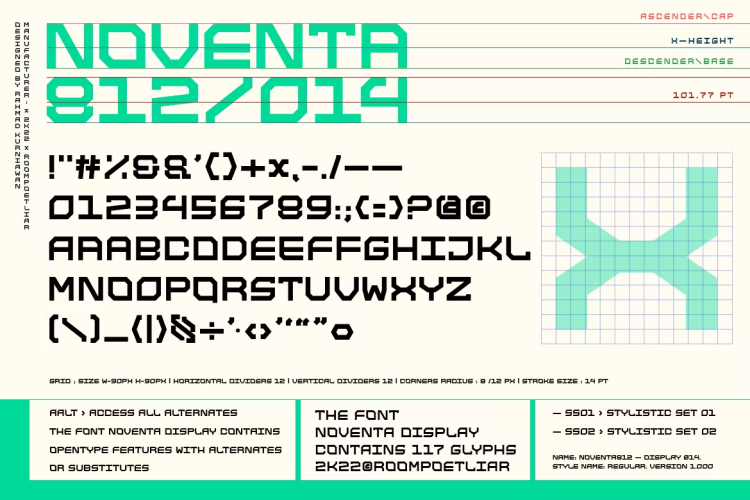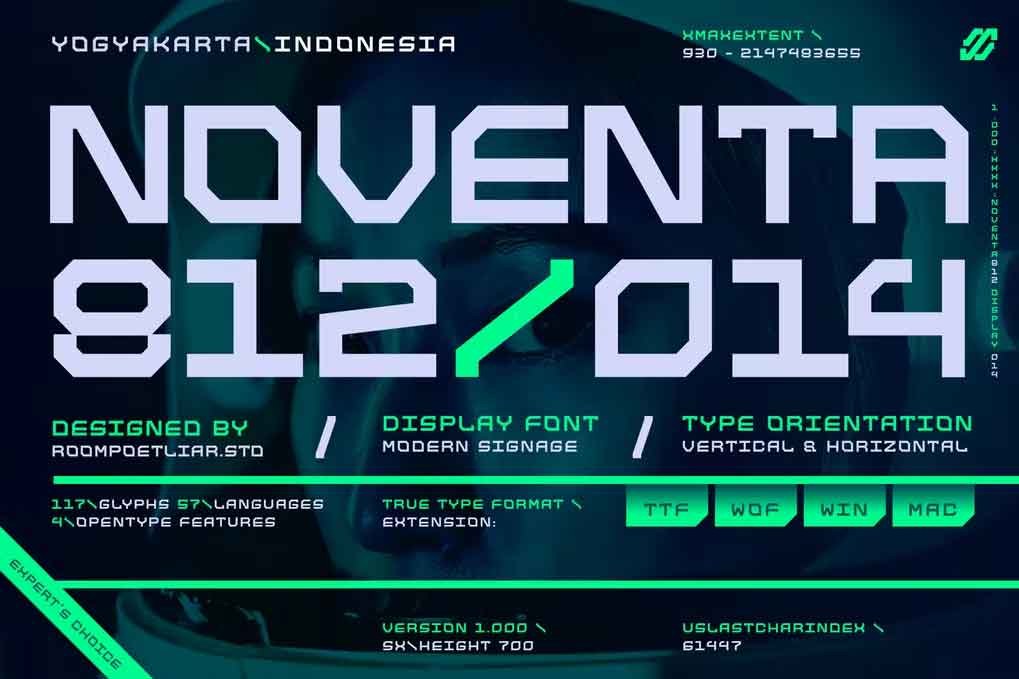
Noventa Display Font
Noventa 812 Display 014 Font is a futuristic cyber font, inspired by sci-fi and technology. Designed the font with a modern feel to achieve the theme. It is also well suited for branding, magazine, marketing design, technology, sci-fi design, bag, poster designs, headlines, typography projects (streetwear, construction, resistance, solidarity, movement, revolution), E-Sport logos, sports jersey text, and much more.
Where Noventa Display Font works best
Noventa Display Font stays legible at small sizes, which makes it a strong choice for navigation, buttons and dashboards in web design and app interfaces.
Clean sans serifs like Noventa Display Font are the default language of SaaS, fintech and product branding.
What is Noventa Display Font good for?